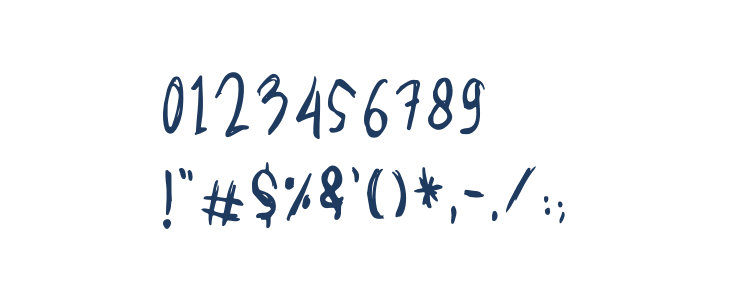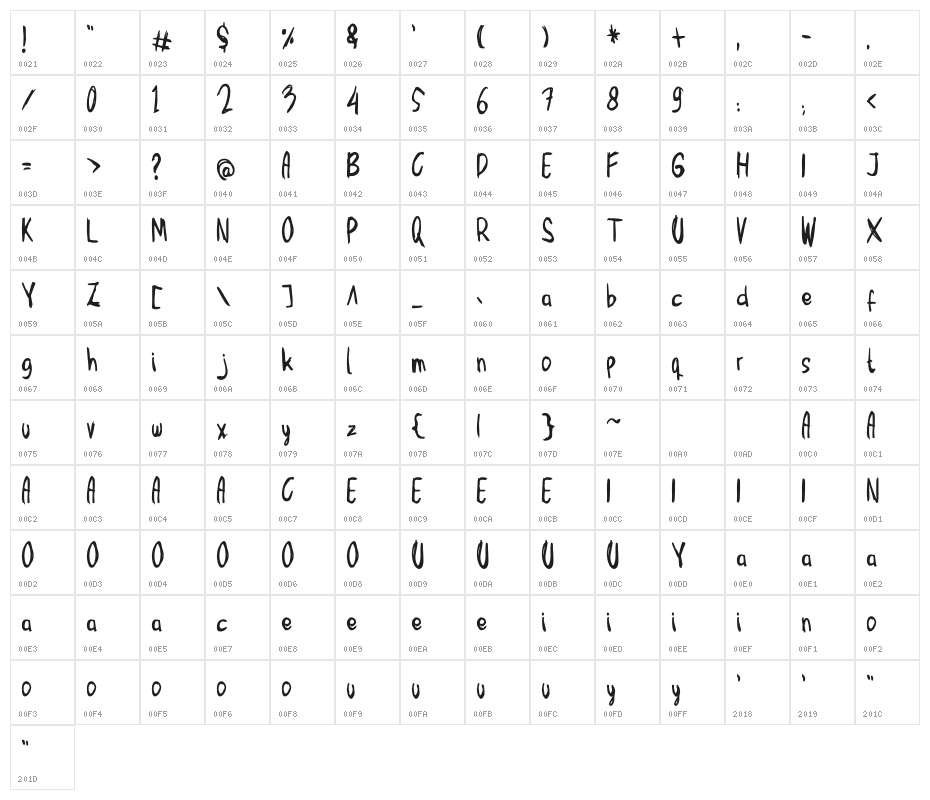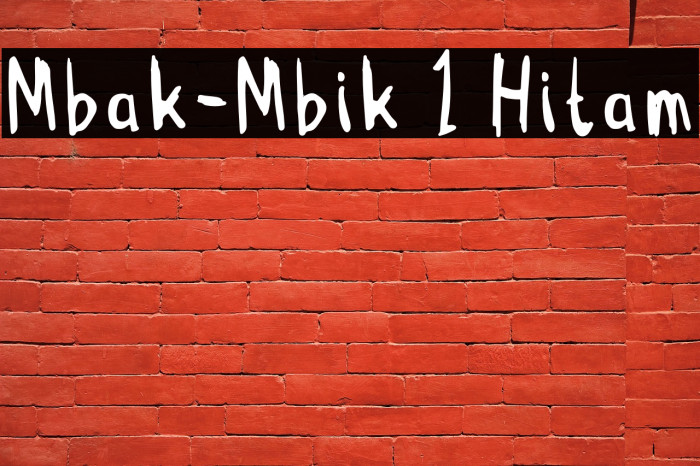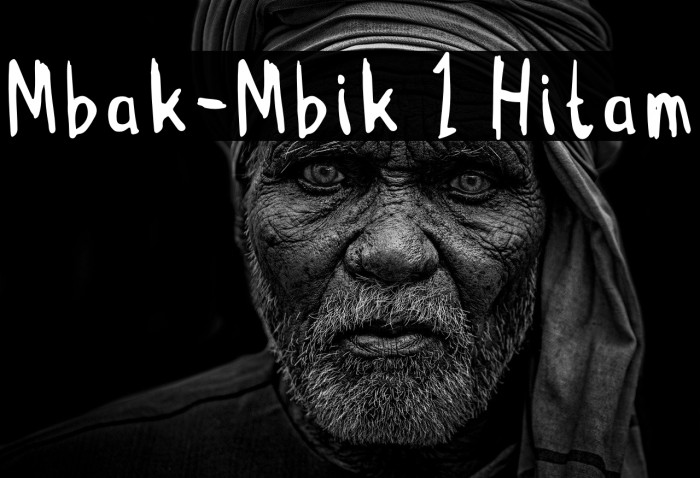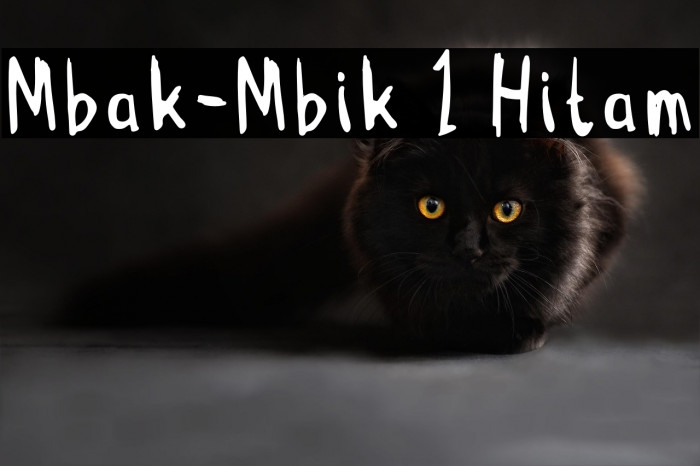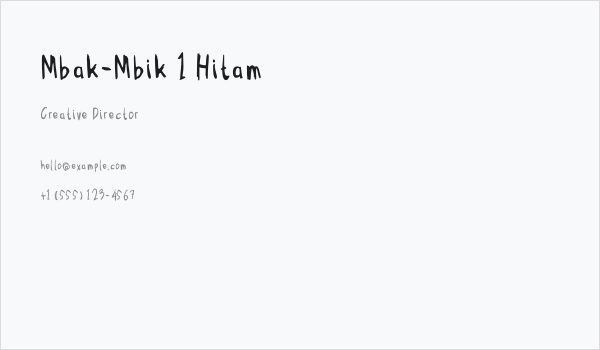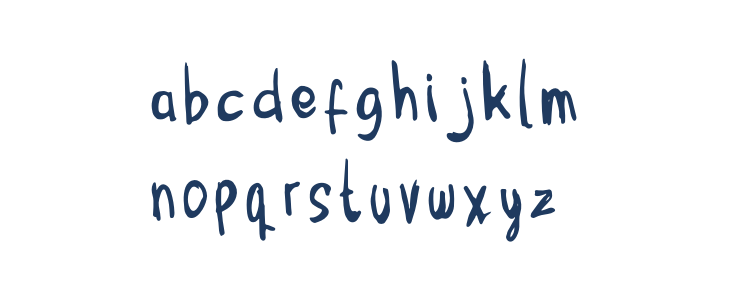
Mbak-Mbik 1 Hitam Font
Mbak-Mbik 1 Hitam Description
This font features a bold, hand-drawn style with a playful and energetic appearance. The letters have an irregular, organic shape that gives them a lively and informal feel. The strokes are thick and uneven, adding to the font's dynamic character. The uppercase and lowercase letters maintain a consistent style, while the numbers and special characters complement the overall look. This font is ideal for projects that require a personal touch or a creative, artistic vibe.
Proposed ProjectsIdeal for creative projects, children's books, posters, and branding that requires a personal touch.